Best Unique Fonts 2026: Typography That Gives Creative Work a Signature
In 2026, distinctive typography is becoming a central brand asset rather than a finishing touch. Trend reports highlight playful lettering, intentional imperfection, retro-futurism, expressive serifs, and quieter sans-serif systems. Designers can be highly experimental, provided each unusual decision still supports the message and audience.
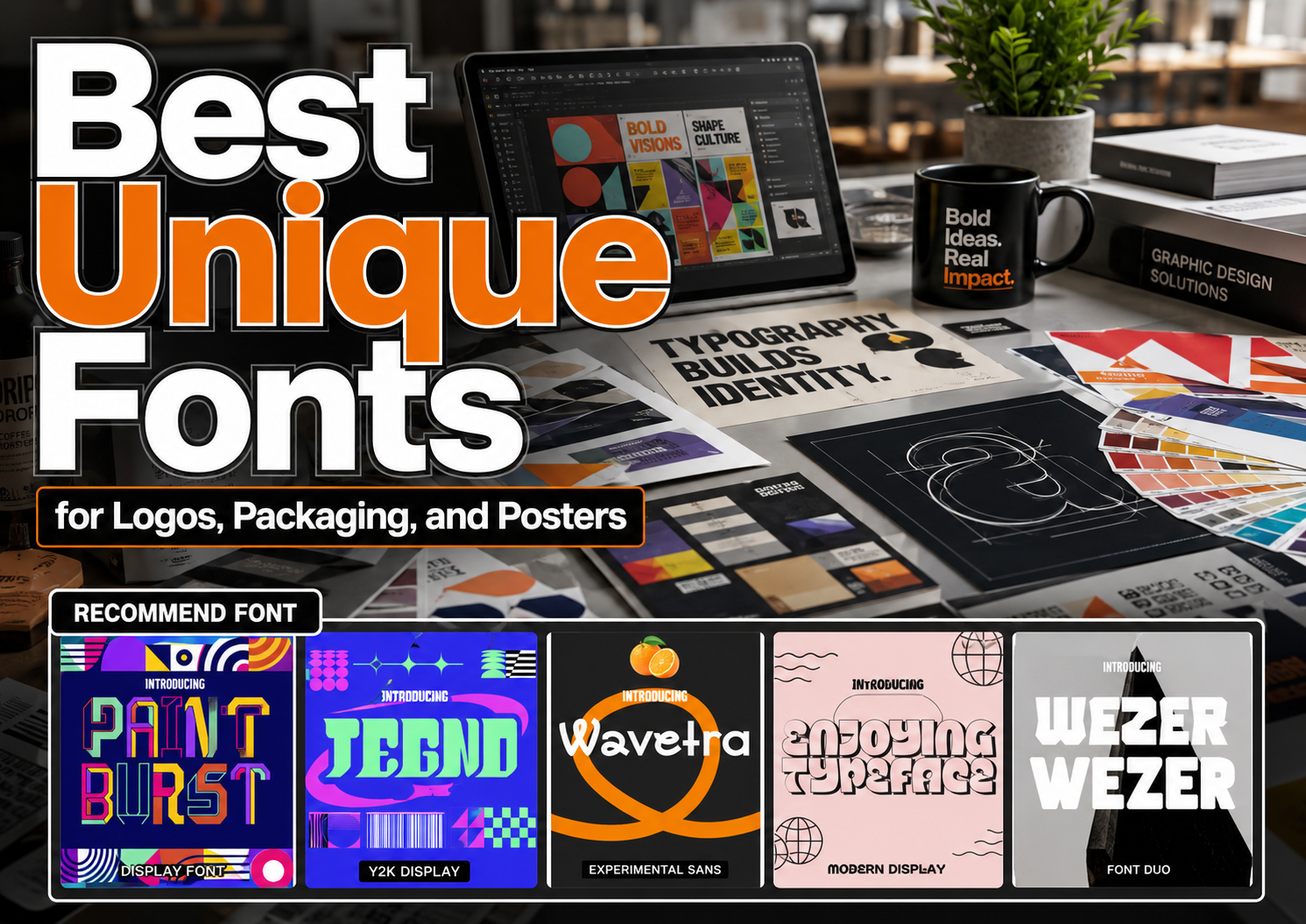
Choose a Font by Creative Role
The strongest best unique fonts 2026 selections are not simply the strangest typefaces available. Decide whether the font must create a logo silhouette, stop the scroll, establish a packaging personality, or give an editorial cover a recognizable voice.
Use one expressive display font for high-impact moments, then pair it with a restrained serif or sans serif for descriptions, navigation, prices, and longer copy. Test the real brand name in monochrome and at thumbnail size before adding effects.
What Makes a Font Feel Unique in 2026?
A unique font may use unexpected curves, modular layers, Y2K geometry, unusual counters, bold proportions, or coordinated alternate styles. Its value comes from creating recognition without sacrificing all readability.
Check numerals, punctuation, multilingual characters, small-size clarity, and licensing for logos, websites, packaging, advertising, or embedded digital use.
1. Paint Burst Unique Colorful Font
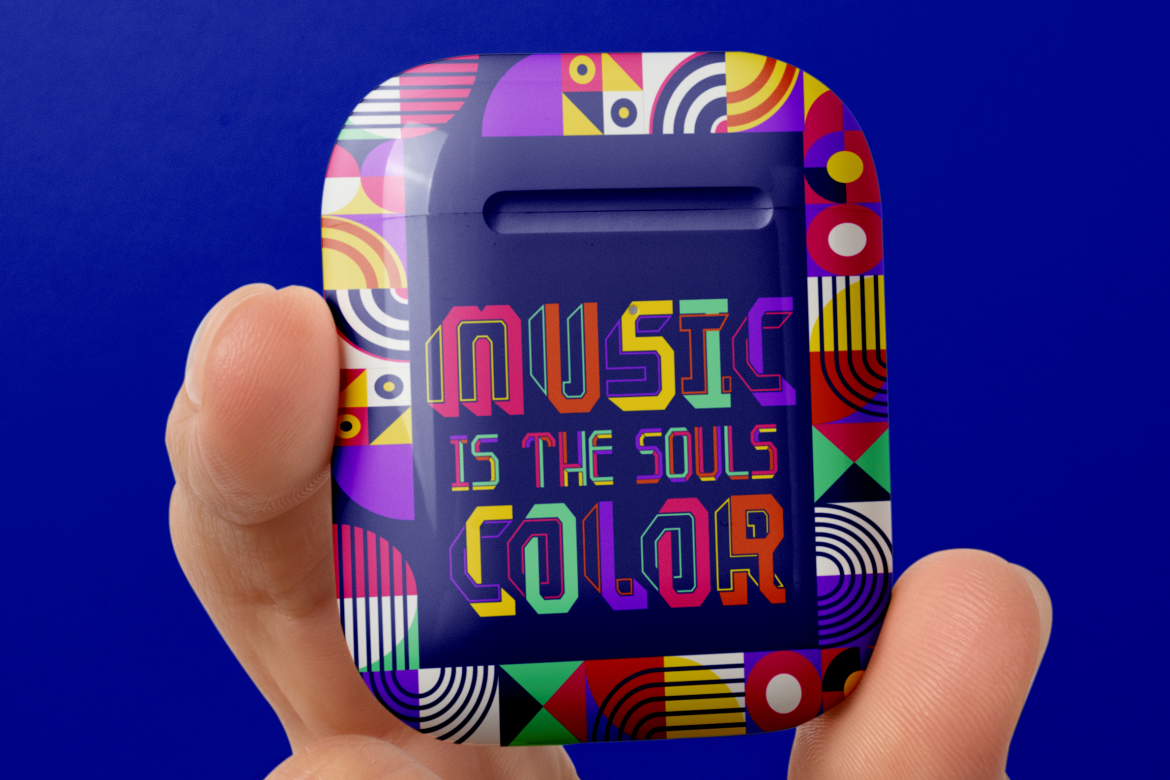
Paint Burst is a five-style quirky display family for energetic, layered, and colorful compositions. Its variations let a short title become a complete graphic element while maintaining one recognizable typographic personality.
PROS: Five coordinated styles, lively impact, flexible campaign use.
BEST FOR: Youth branding, posters, packaging, music graphics, merchandise, and social content.
2. Tegno Y2K Font
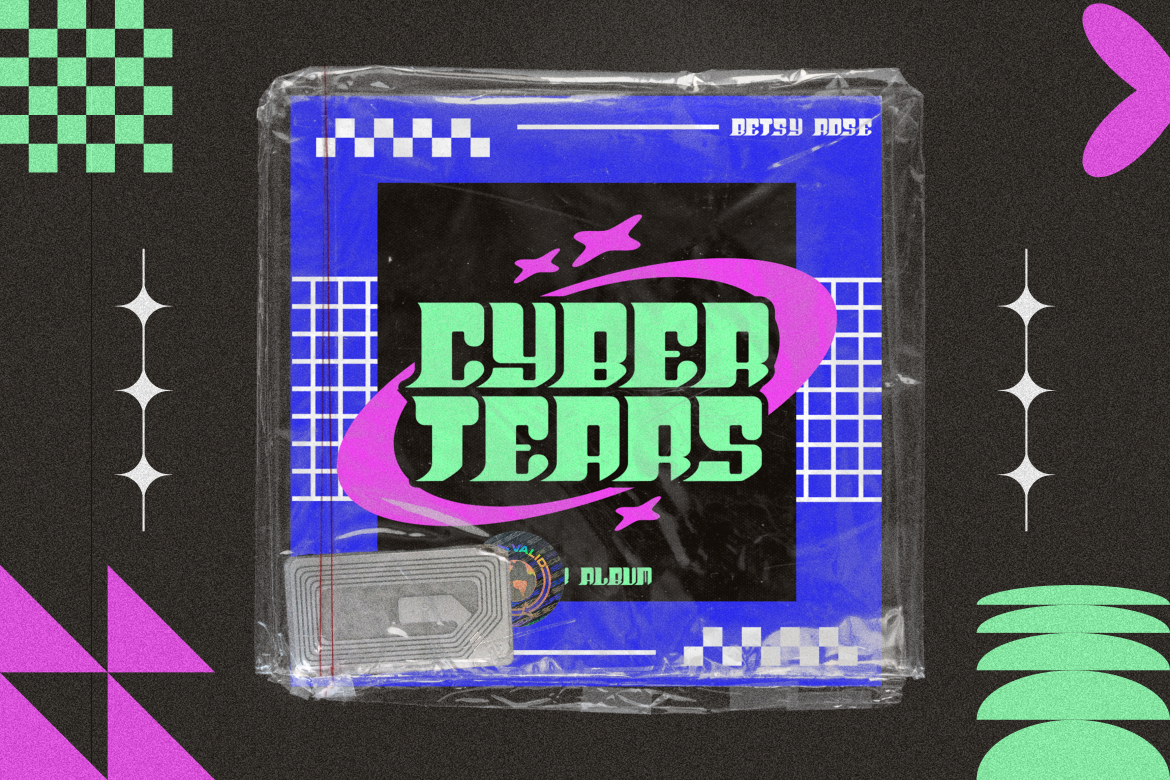
Tegno combines thick block forms, bevel-like details, unexpected curves, sharp edges, and exaggerated terminals inspired by early-2000s digital culture. Its techno rhythm fits projects that need vaporwave nostalgia, rave energy, or a retro-futuristic signature.
PROS: Bold Y2K identity, strong silhouette, broad character support.
BEST FOR: Technology startups, fashion packaging, album art, gaming, rave flyers, and digital campaigns.
3. Wavetra Unique Experimental Font
Wavetra uses smooth curves, rounded edges, fluid contours, medium-to-bold weight, and open counters. It feels playful and contemporary while retaining enough clarity for logos and headlines.
PROS: Fluid construction, controlled spacing, expressive but readable forms.
BEST FOR: Lifestyle brands, magazines, book covers, advertising, packaging, and creative studios.
4. Enjoying Typeface Modern Display Font
Enjoying Typeface offers two bold contemporary styles with playful, distinctive letterforms. The pair helps designers vary headlines, product names, posters, and campaign assets while preserving a related visual voice.
PROS: Two coordinated styles, thick presence, broad versatility.
BEST FOR: Logos, editorial titles, business branding, posters, stickers, and product campaigns.
5. Wezer Display Bold Font Duo
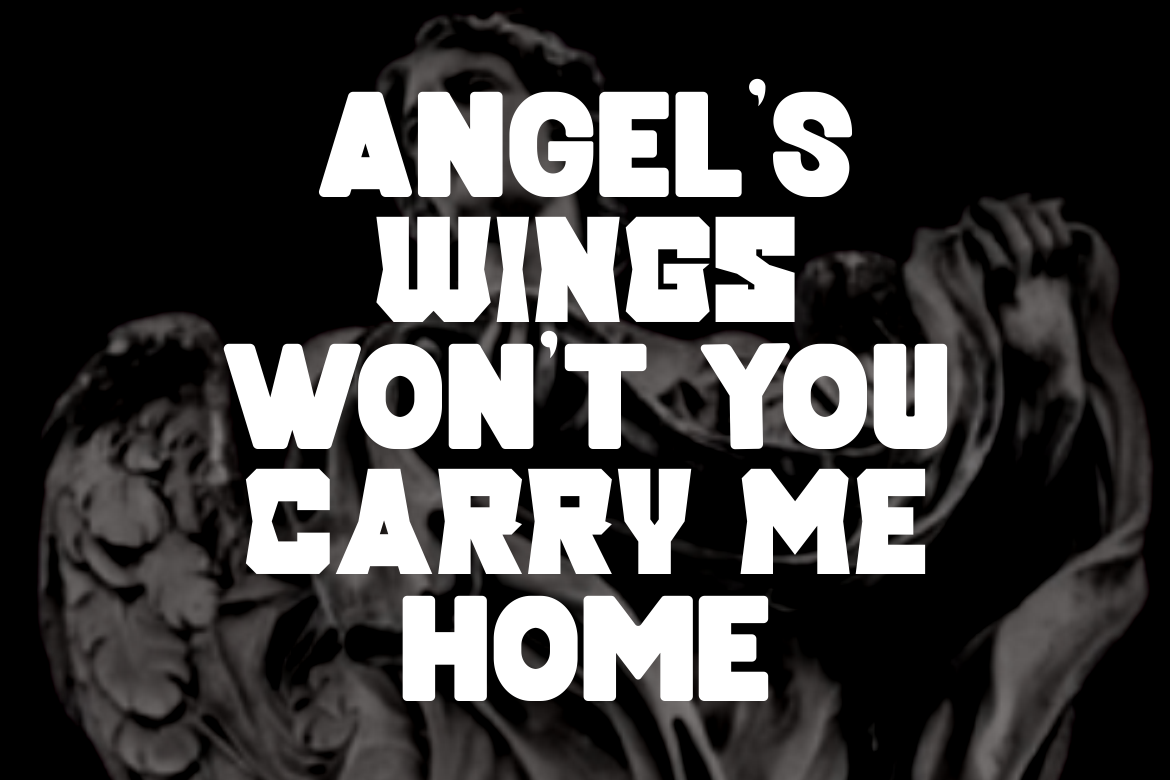
Wezer includes rounded and display versions, plus uppercase, lowercase, numerals, punctuation, alternates, and ligatures. Its quirky construction creates strong contrast within a campaign without introducing an unrelated family.
PROS: Two complementary versions, OpenType options, memorable personality.
BEST FOR: Brand identities, billboards, packaging, event graphics, banners, and headlines.
Comparison
| Font | Main Direction | Strongest Quality | Ideal Application |
|---|---|---|---|
| Paint Burst | Colorful quirky display | Multi-style energy | Social and packaging |
| Tegno | Y2K techno | Retro-futuristic recognition | Music and technology |
| Wavetra | Fluid experimental | Expression with clarity | Contemporary branding |
| Enjoying Typeface | Playful modern display | Versatile hierarchy | Editorial and campaigns |
| Wezer | Rounded/display duo | Coordinated contrast | Logos and headlines |
Common Mistakes
The first mistake is choosing a unique font only because it looks fashionable in a specimen. Real brand names may contain awkward repeated letters, long words, or numerals that reveal spacing and legibility problems. Test the exact content across packaging, mobile thumbnails, posters, and one-color applications.
Another mistake is combining several expressive fonts in one layout. A Y2K headline, fluid subtitle, quirky label, and decorative body font compete instead of creating hierarchy. Let one typeface lead, then create variety through scale, color, cropping, or approved alternates.
The final mistake is overlooking licensing and production. Static graphics, registered logos, live webfonts, digital advertisements, applications, and editable templates may require different coverage. Confirm the intended use and simplify details that may disappear in printing, embroidery, signage, or small digital formats.
Use these PutraCetol Studio fonts where recognition matters most, then support them with readable typography. A unique font succeeds because it gives the project a visual voice audiences can identify and remember.